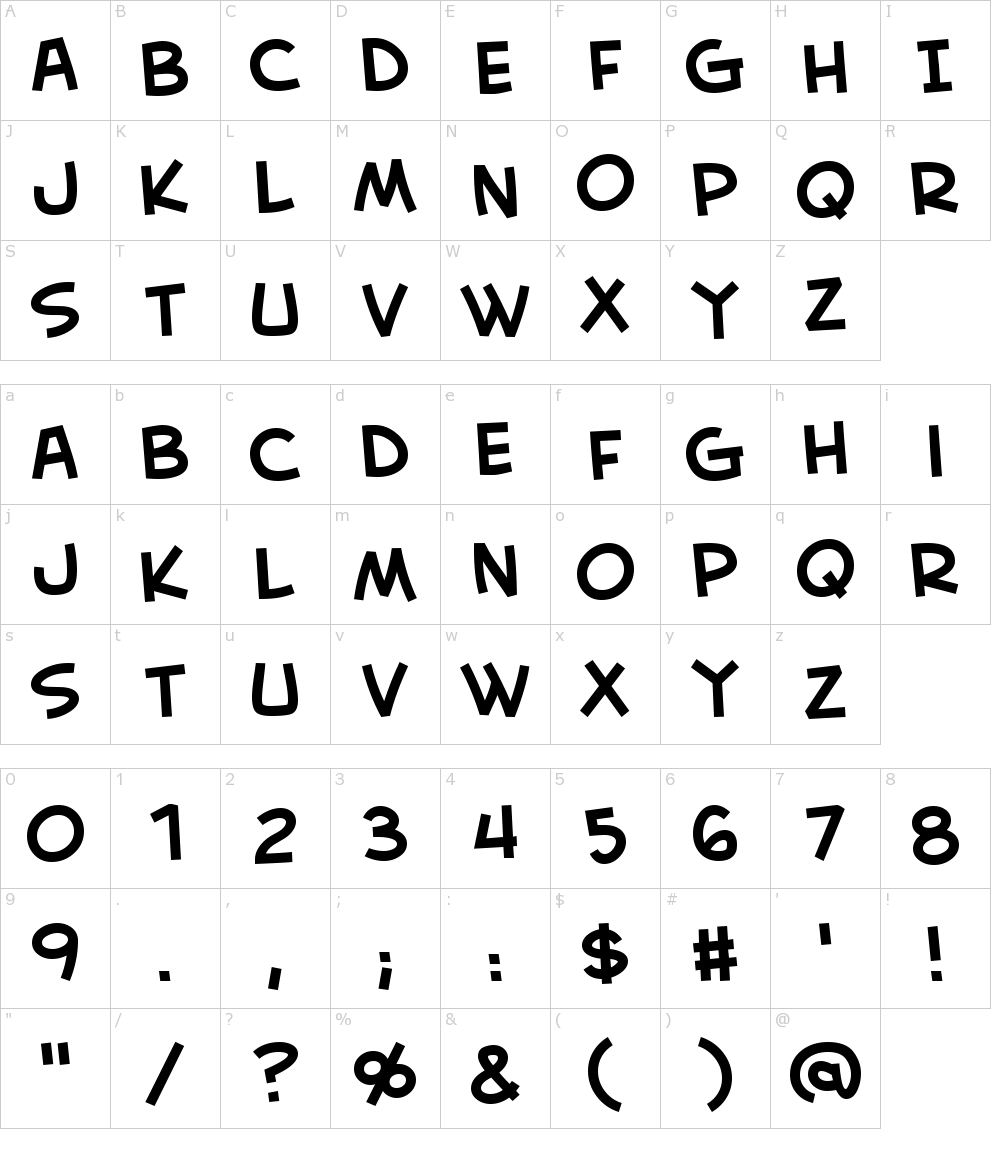
Review Of Bb Fonts 2022. Therefore, today we are going to introduce you to a tremendous and fabulous font the swing set. Fonts discovered his passion for art as a child.
Web Swing Set Bb Font.
More about this family aa glyphs. Web comic display fancy back issues bb font free download back issues bb font is a playful, comic font family that captures the kid’s attraction to own. Web piekos fx bb font family was designed by nate piekos and published by blambot.
The Spinner Rack Bb Font Was Designed By Nate Piekos.
Web unearthed bb™ by blambot individual styles from $20.00 unearthed bb font family was designed by nate piekos and published by blambot. It’s punchy and versatile and at the same time it fits. The author works at company nate piekos blambot com.
It Is Part Of Blambot's Dialogue Collection And.